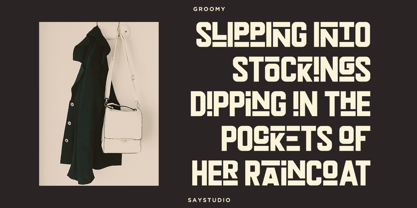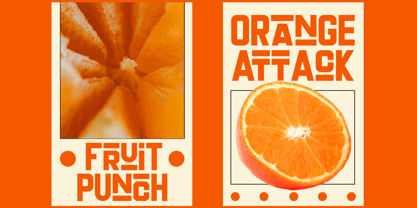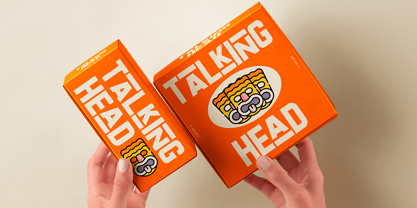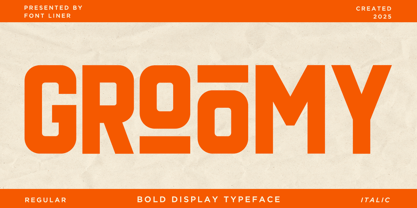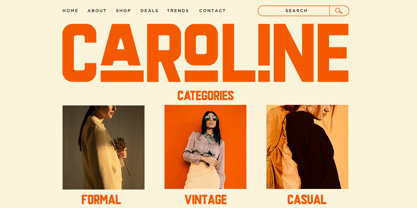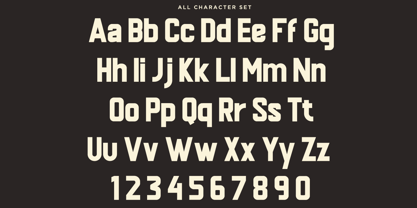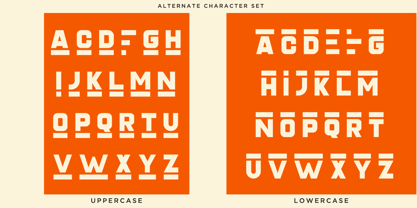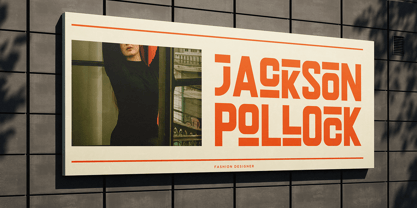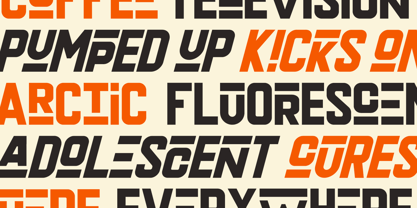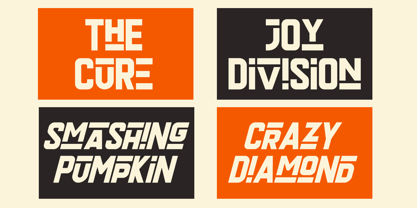
Groomy
by Font Liner
The Groomy Font Family was designed by Ghina Luthfiarieska and published by Font Liner. Groomy contains 2 styles and family package options.
Groomy is Bold Display Sans Font, has an energetic, lively design that feels fun & approachable. The rounded edges give a friendly, welcoming look and make the letters feel more casual. Groomy best used for headings, logo types, apparel design, invitations, posters, flyers, greeting cards, packaging, book covers, printed quotes, cover album, movie, and more.